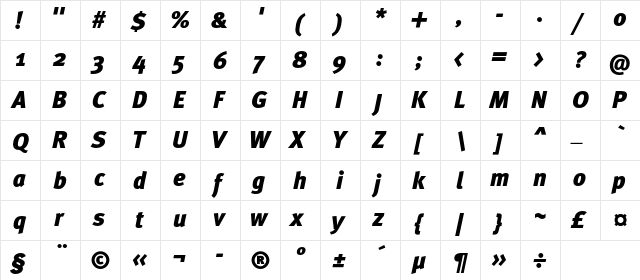
MetaBlackC Italic
Design Context for MetaBlackC Typeface
MetaBlackC takes a measured approach to typography — its balanced proportions and neutral character make it a reliable workhorse for both digital and print work. Its italic angle brings a sense of urgency and motion to the letterforms.